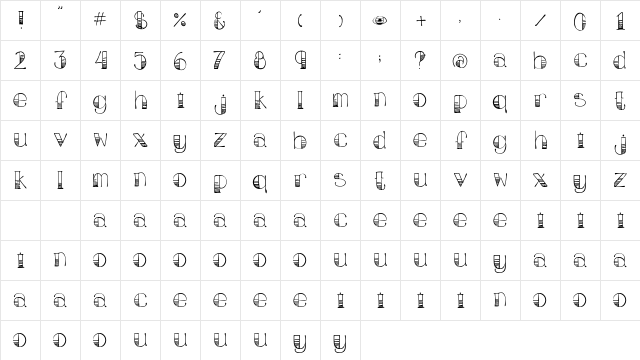
February Regular Font Preview
February Regular
Design Context for February Typeface
February is a composed and adaptable typeface that performs quietly and consistently across a wide range of design contexts.